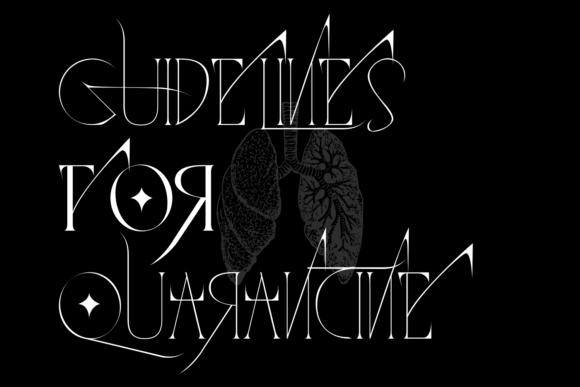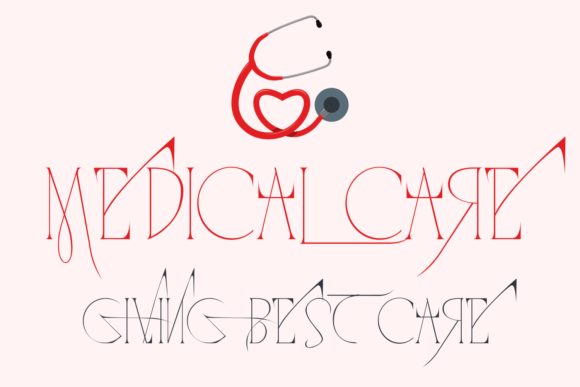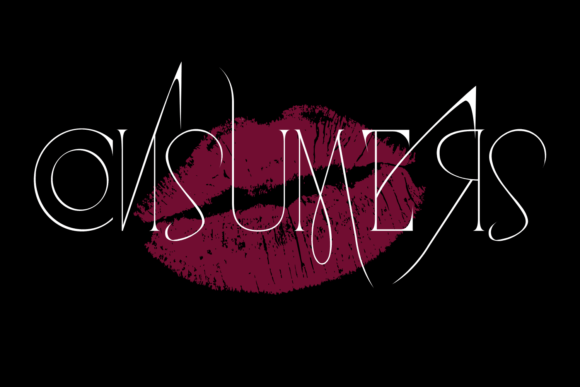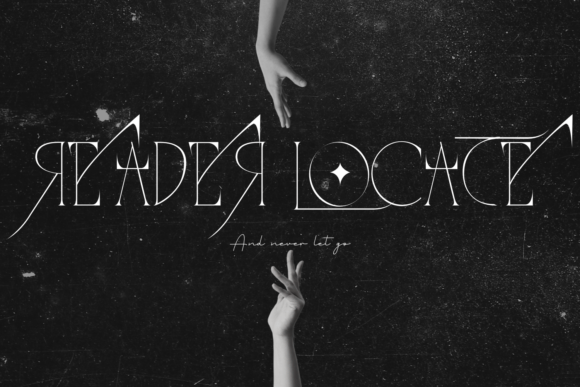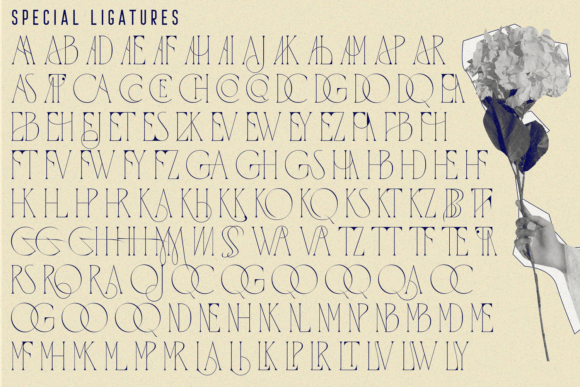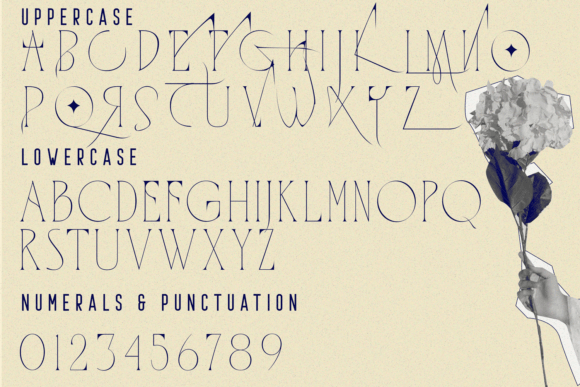
Introduction to Quarantine Regulations Font
Have you ever been working on a creative project and stumbled upon the perfect font, the one that makes all your designs pop? For designers, finding that elusive font can be a game-changer. It’s the moment when all the elements come together, and your design takes on a life of its own. For me, that moment came when I discovered the Quarantine Regulations Font.
This stunning serif font is a design resource that’s sure to elevate your projects. With its beautiful and unique style, it’s perfect for logos, headlines, book covers, magazines, and so much more. The Quarantine Regulations Font is PUA encoded, making it easy to access all the glyphs and swashes you need. Whether you’re working on a high-end design or a simple project, this font is a valuable addition to your design arsenal.
Not only is the Quarantine Regulations Font a design powerhouse, but it’s also available for free download, making it an accessible resource for designers of all levels. With its high-quality design and transparent background, you can create spectacular designs that are sure to impress.
Key Features of Quarantine Regulations Font
- High-quality design resource with a unique aesthetic, perfect for creative projects that require a touch of sophistication.
- Includes a comprehensive character set, covering a wide range of languages and special characters.
- Unique characteristics include intricate details and subtle nuances that set it apart from other fonts in its category.
Honest Review: Quarantine Regulations Font
As a designer, I’m always on the lookout for high-quality design resources to enhance my creative projects. The Quarantine Regulations Font caught my eye, and I decided to give it a try. Here’s my honest review.
- High-quality typography: The font is well-designed, with crisp lines and a clean aesthetic.
- Limited character set: The font only includes a basic character set, which may not be sufficient for more complex design projects.
- No bold or italic styles: The font lacks bold and italic styles, which may limit its versatility.
Overall, the Quarantine Regulations Font is a solid addition to any designer’s toolkit. While it has some limitations, its high-quality typography and transparent background make it a great resource for simple design projects. If you’re looking for a free font for a creative project, this one is definitely worth considering.
The Quarantine Regulations Font is a unique design resource ideal for creative projects. This high-quality font is available for free download and features a transparent background, making it versatile for various applications.
Tips for Getting the Most Out of the Quarantine Regulations Font
Use the Quarantine Regulations Font to add a unique touch to your designs, and consider the following tips:
The Quarantine Regulations Font is ideal for:
Designing health and wellness materials, such as posters or brochures.
Creating unique titles or headings for presentations or documents.
Adding a touch of elegance to your creative projects, such as graphic designs or artwork.